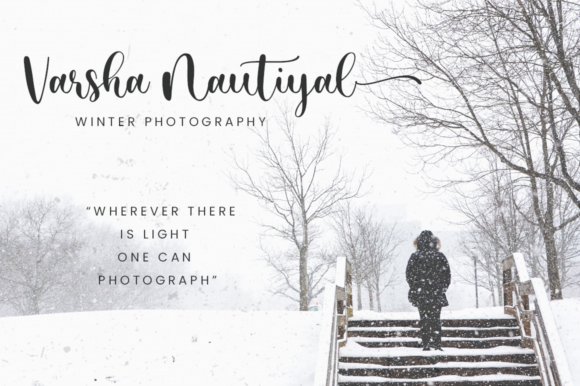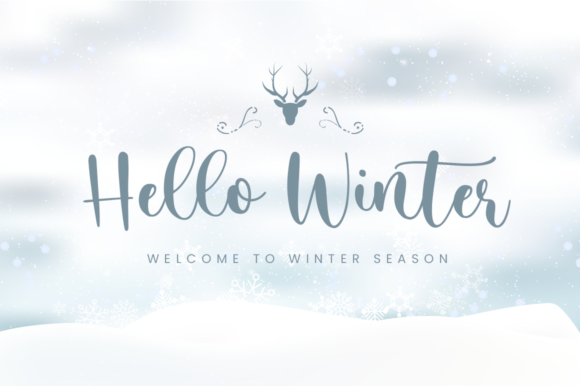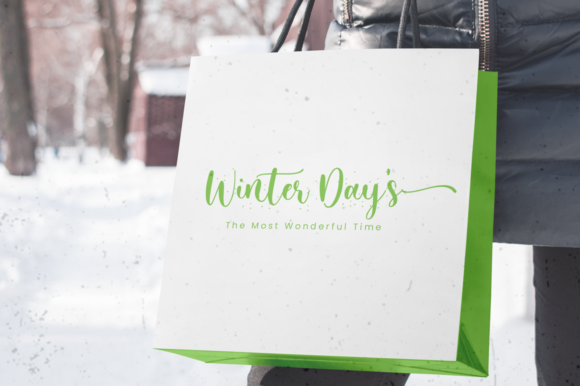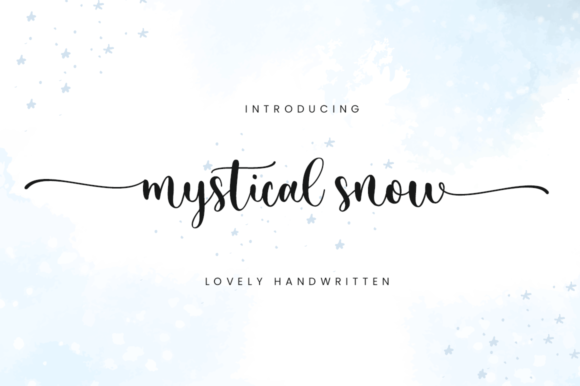
Introduction to Mystical Snow Font
Mystical Snow feels elegant and modern.
This beautiful script font features cute swashes and ligatures that will take your design to the next level It is perfect for crafting, branding, invitations, stationery, wedding designs, social media posts, advertisements, product packaging, photography, watermark, special events, and more.
Key Features of Mystical Snow Font
Why Choose Mystical Snow Font?
Mystical Snow Font offers exceptional quality and versatility, making it a valuable addition to your design toolkit. Whether you’re creating for personal projects or commercial use, Mystical Snow Font delivers professional results.